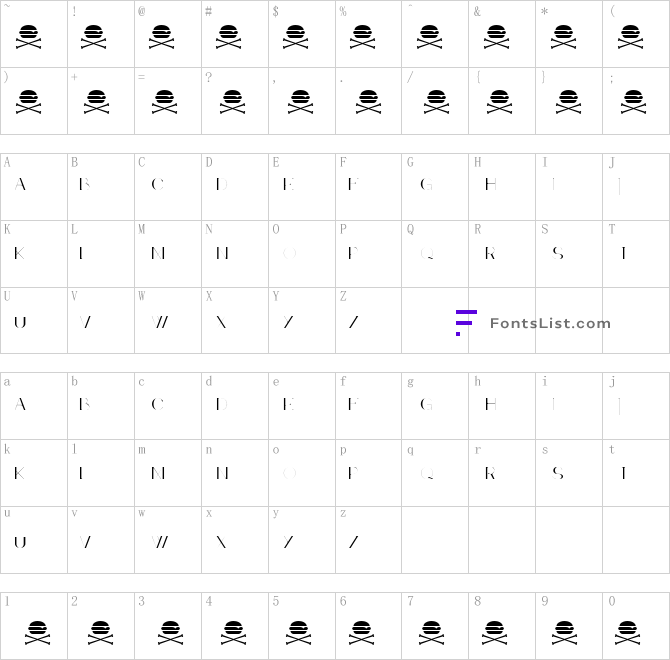
- Font Name:Acne Demo
Acne-Demo-Regular.ttf is a very beautiful artistic font, Acne-Demo-Regular.ttf is widely used in the design and printing of various books and pictures,Acne-Demo-Regular.ttf has a strong visual impact,Acne-Demo-Regular.ttf is a commonly used font in newspapers, magazines and books, and is used in posters, e-commerce Poster design, store design, logo design, font design and other fields.Acne-Demo-Regular.